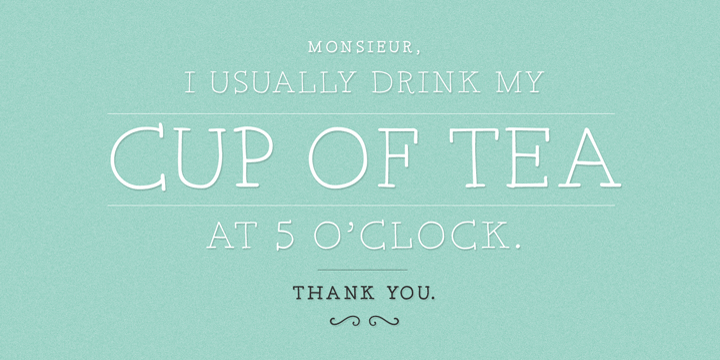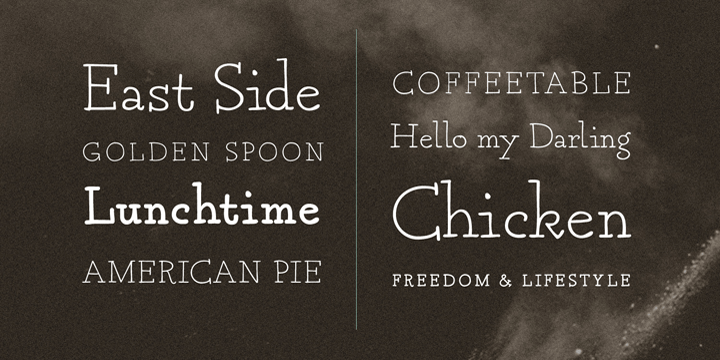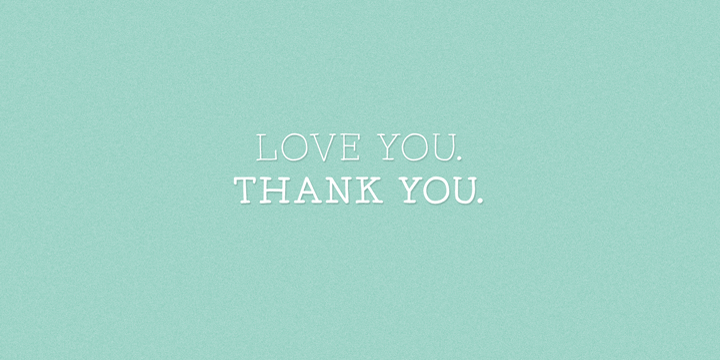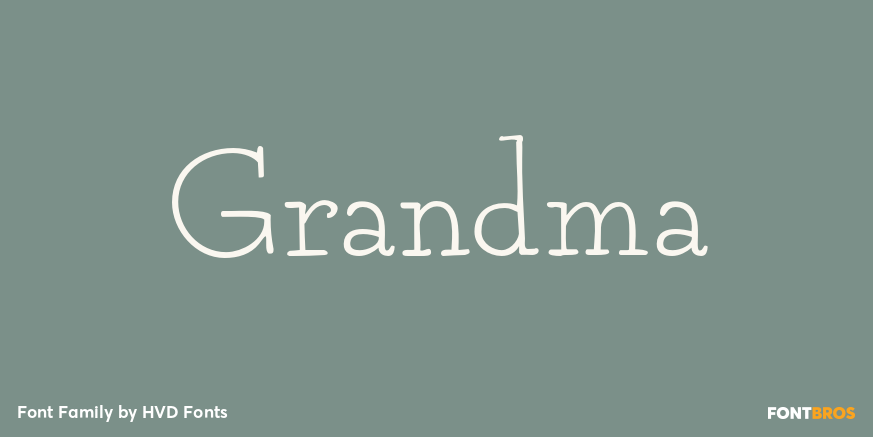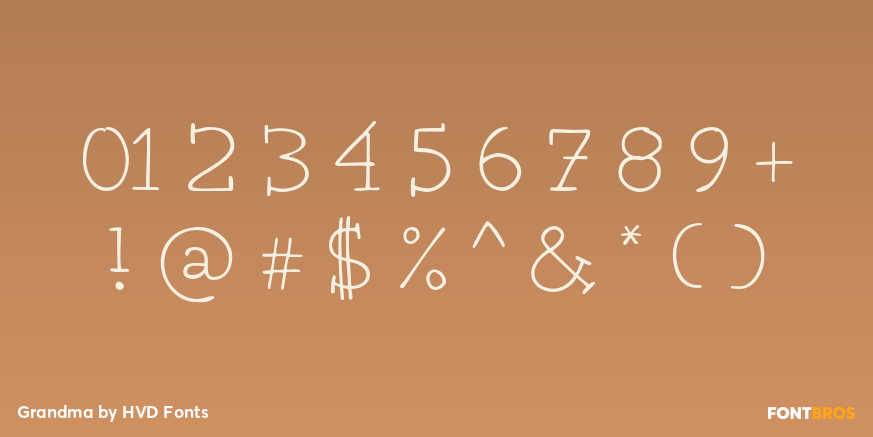
Grandma
Font Family by HVD Fonts
Grandma is a lovely hand-drawn serif font.
It is perfect for greeting cards, children's books and everything that should have a handmade, kind feeling.